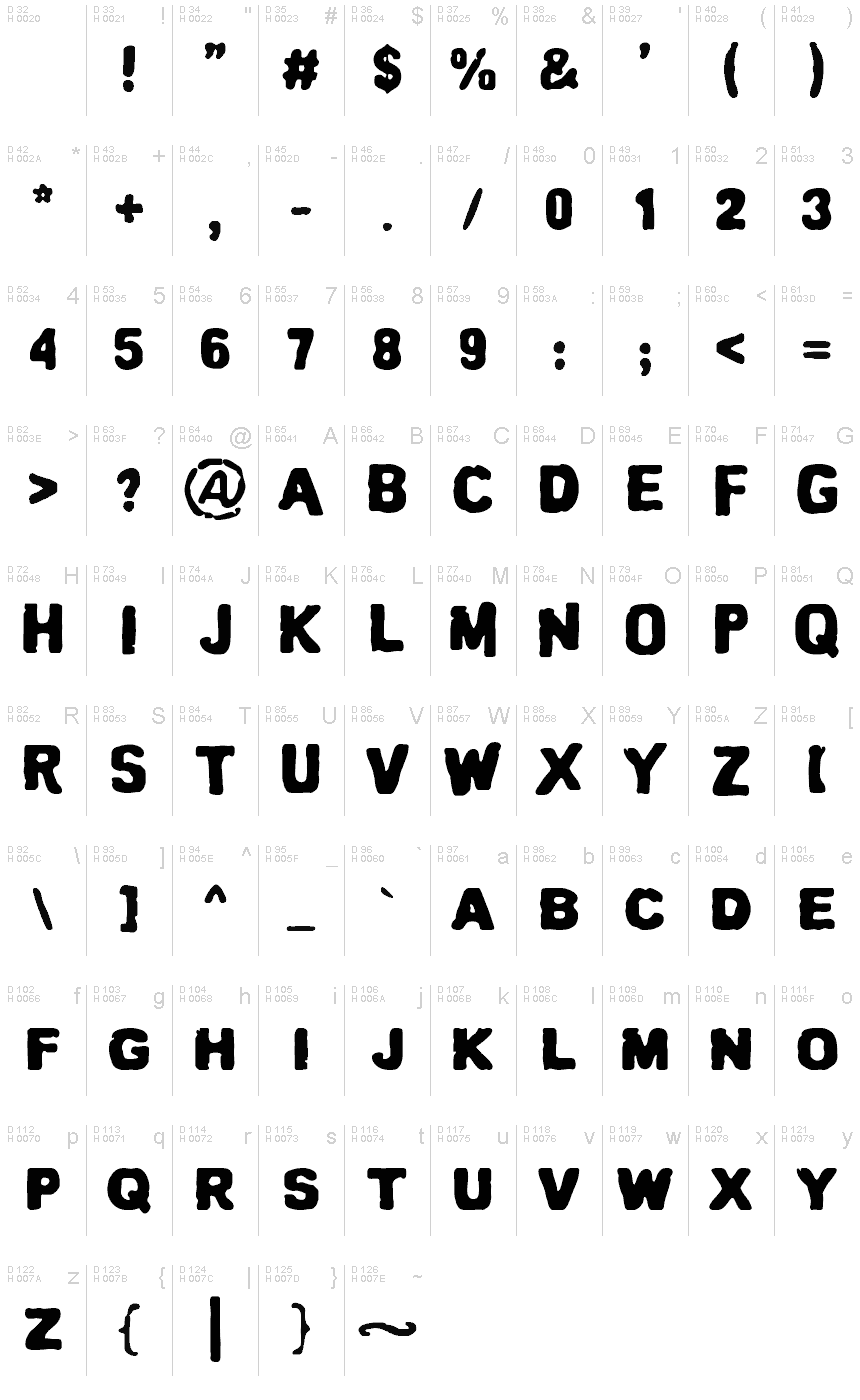
Melting Letter Bold
Melting Letter Bold is a striking display font that evokes a sense of weathered, eroded charm. Designed by Lettersiro, this bold typeface features dramatic, irregularly melting letterforms that convey a captivating sense of imperfection and decay. The font's rugged aesthetic lends itself seamlessly to a wide range of design applications, from gritty editorial spreads to eye-catching branding and packaging. Its bold, distinctive character makes it an excellent choice for adding visual impact and a touch of industrial-inspired flair to any project.
Melting Letter Bold's unique, distressed style is sure to make a lasting impression, whether used for attention-grabbing headlines, moody album art, or rustic-inspired logo designs. Its versatility and striking visual presence make it a valuable asset in the creative toolkit of designers seeking to elevate their work with a touch of weathered, expressive charm.